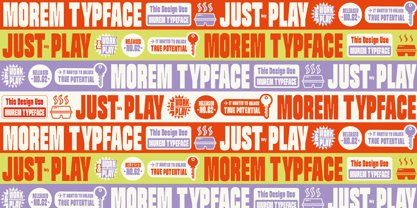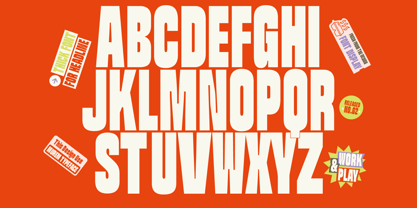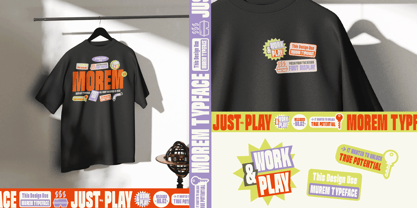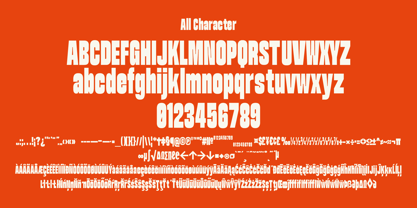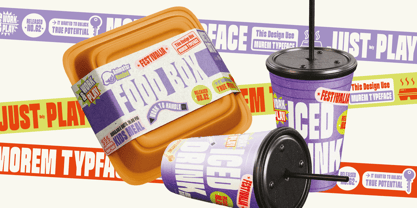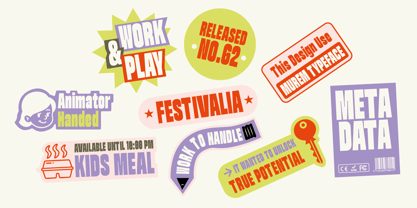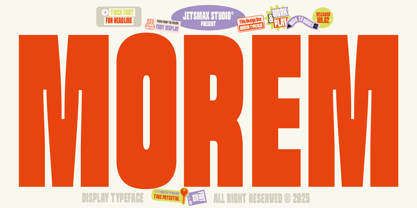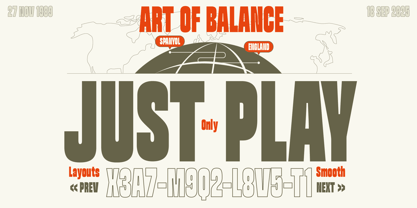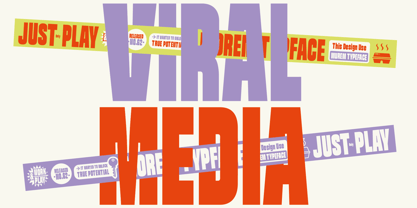
Morem
by Jetsmax Studio
The Morem Font Family was designed by Khairil Anwar and published by Jetsmax Studio. Morem contains 2 styles and family package options. More about this family
Introducing Morem, a bold typeface designed with a unique approach. Unlike most heavy fonts, Morem stands out with its unusual balance—letters are weighted more on the top and bottom, while the sides remain slimmer. The result is a solid, strong, and distinctive look that carries personality and character. Perfect for projects that require a powerful visual impact, Morem works beautifully for logos, posters, headlines, covers, and modern branding. With its bold yet unique appearance, Morem is ready to bring a fresh edge to your creative work.
Designers: Khairil Anwar
Foundry: Jetsmax Studio